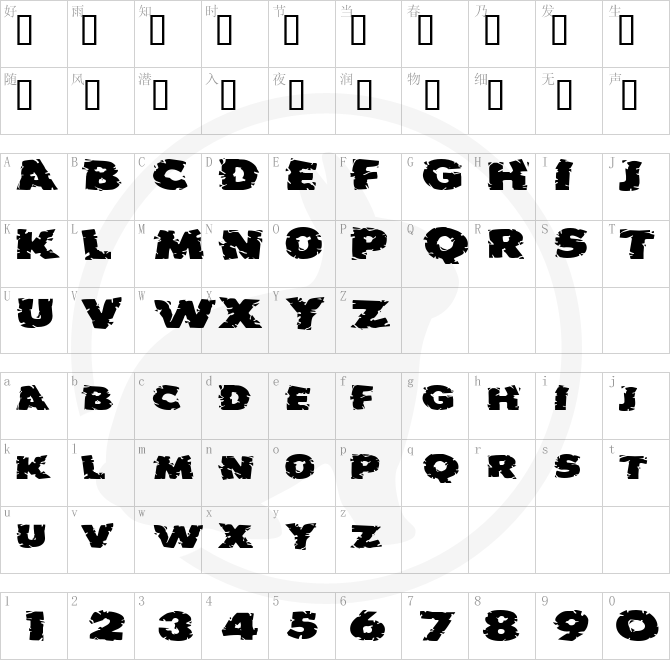
EarthshakerExtended.ttf is a very beautiful artistic font, EarthshakerExtended.ttf is widely used in the design and printing of various books and pictures,EarthshakerExtended.ttf has a strong visual impact,EarthshakerExtended.ttf is a commonly used font in newspapers, magazines and books, and is used in posters, e-commerce Poster design, store design, logo design, font design and other fields.EarthshakerExtended.